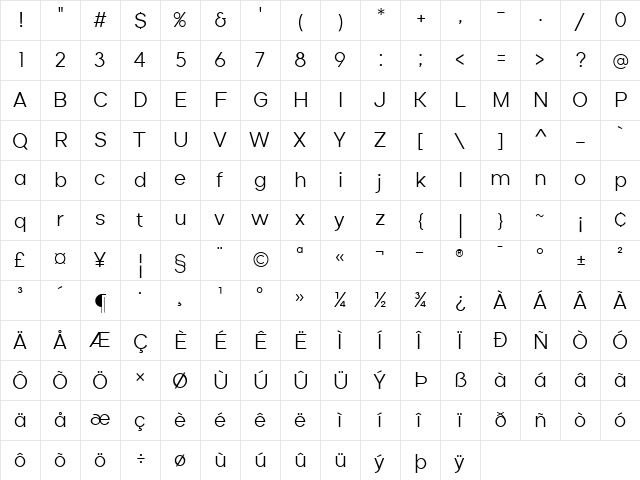
Aceh Light Regular
Design Context for Aceh Light Typeface
Aceh Light offers clean, dependable letterforms without strong stylistic allegiance, making it a practical choice for designers who need flexibility. The delicate stroke weight brings airiness and refinement to layouts.
Pro Tip: Use Aceh Light in both headline and body roles to test its range before committing to a single application.